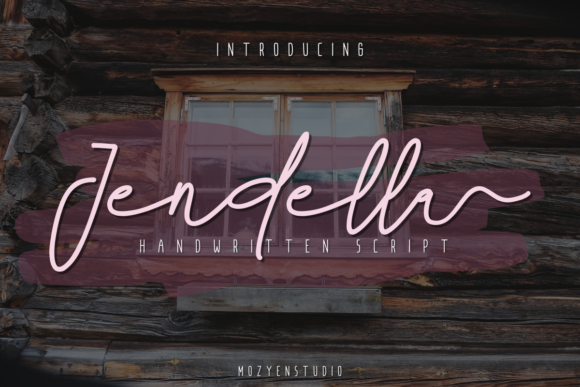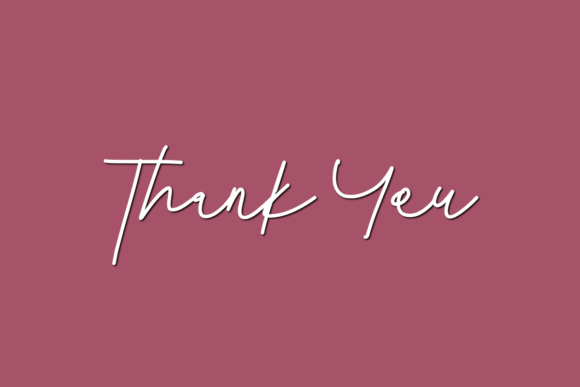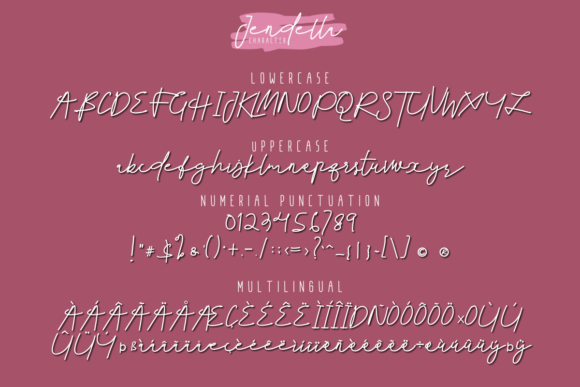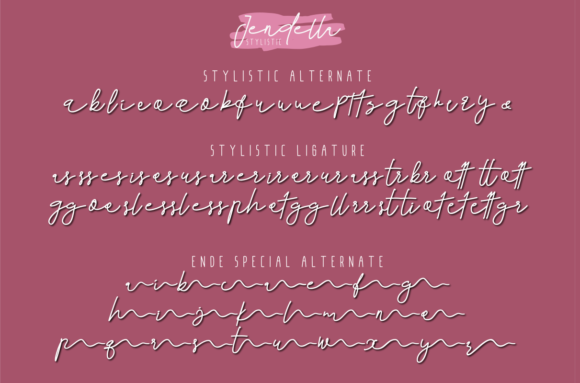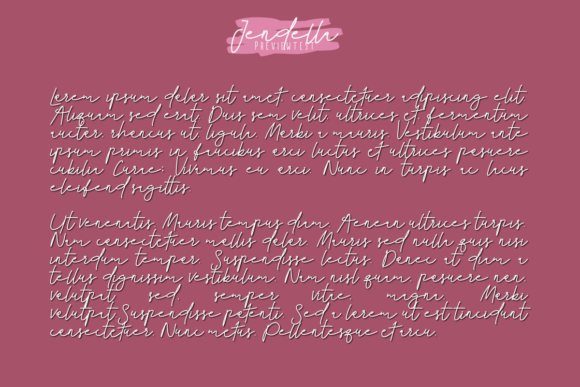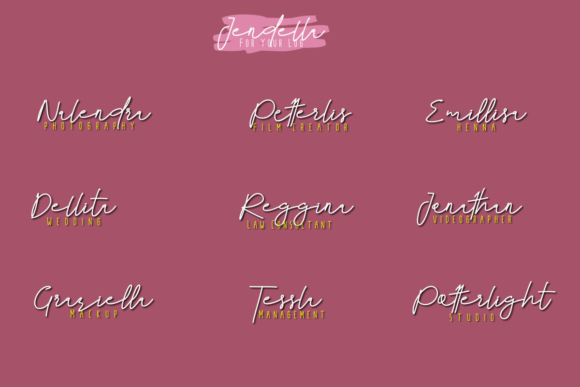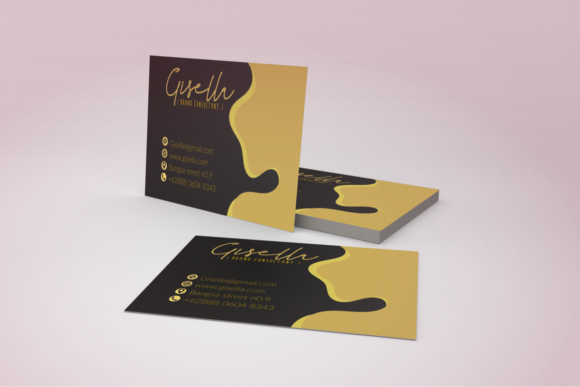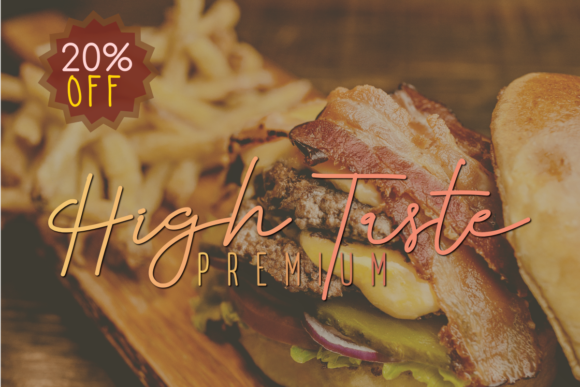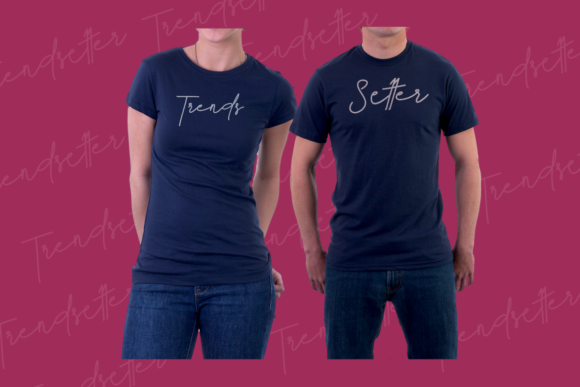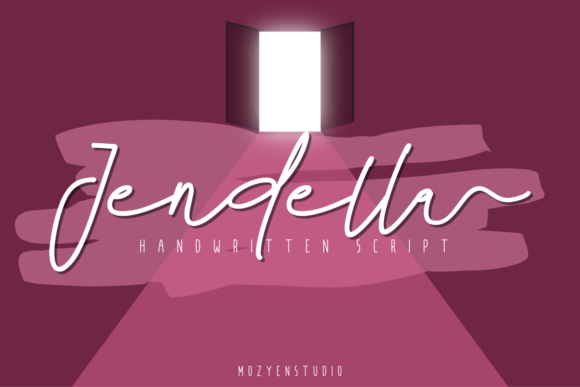
HomeScript FontsJendella Font Script Fonts Jendella Font FacebookXPinterestWhatsApp Jendella Font Poster 2 Jendella Font Poster 3 Jendella Font Poster 4 Jendella Font Poster 5 Jendella Font Poster 6 Jendella Font Poster 7 Jendella Font Poster 8 Jendella Font Poster 9 Jendella Font Poster 10 About Jendella Font Jendella is a cheerful and vibrant script that radiates authenticity. Get inspired by its modern elegance. DOWNLOAD ON CREATIVE FABRICAThis font is sold and delivered by Creative Fabrica. Font Canyon may earn a commission if you buy through this link. People also explored Revenge Font San Andreas Font Worthness Font Domyouji Bright Darling Duo Font Susanne Font Voronesh Font Klapjo Font Ketropolitan Font 354 0 TagsJendella Font Previous articleHamellista FontNext articleWilliam Font LEAVE A REPLY Cancel reply Comment: Please enter your comment! Name:* Please enter your name here Email:* You have entered an incorrect email address! Please enter your email address here Website: Save my name, email, and website in this browser for the next time I comment. Personal Use Free Airmole Personal Use Free Read more about this font Goldsaber Personal Use Free Read more about this font BD Alm Personal Use Free Read more about this font Laneway Personal Use Free Read more about this font BLOG 5 Fonts That Will Dominate Design Trends in 2026 5 Fonts for 2026 That Will Dominate Design Trends Typography plays a critical role in visual communication, and as we look ahead to 2026, it’s... How to Install and Use Fonts on Windows, macOS, and Web Projects Where to Buy American Fonts Online in 2024 Exploring Font Trends